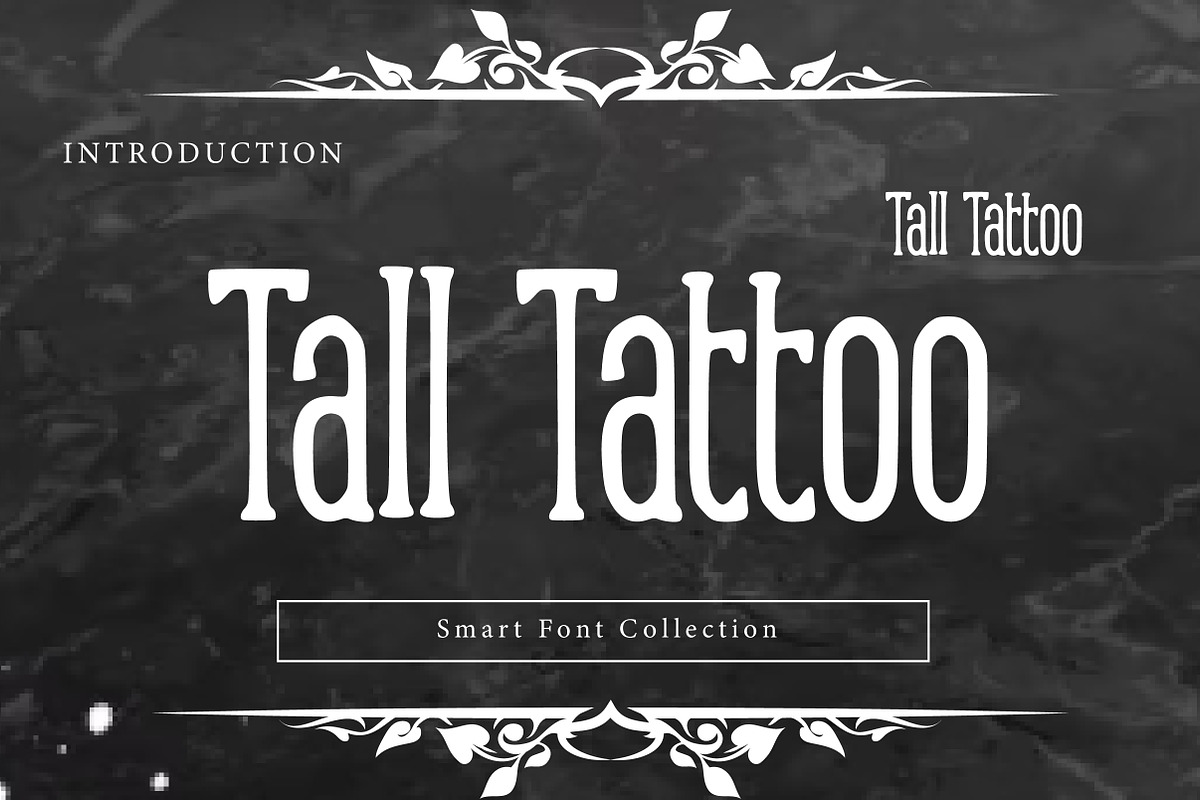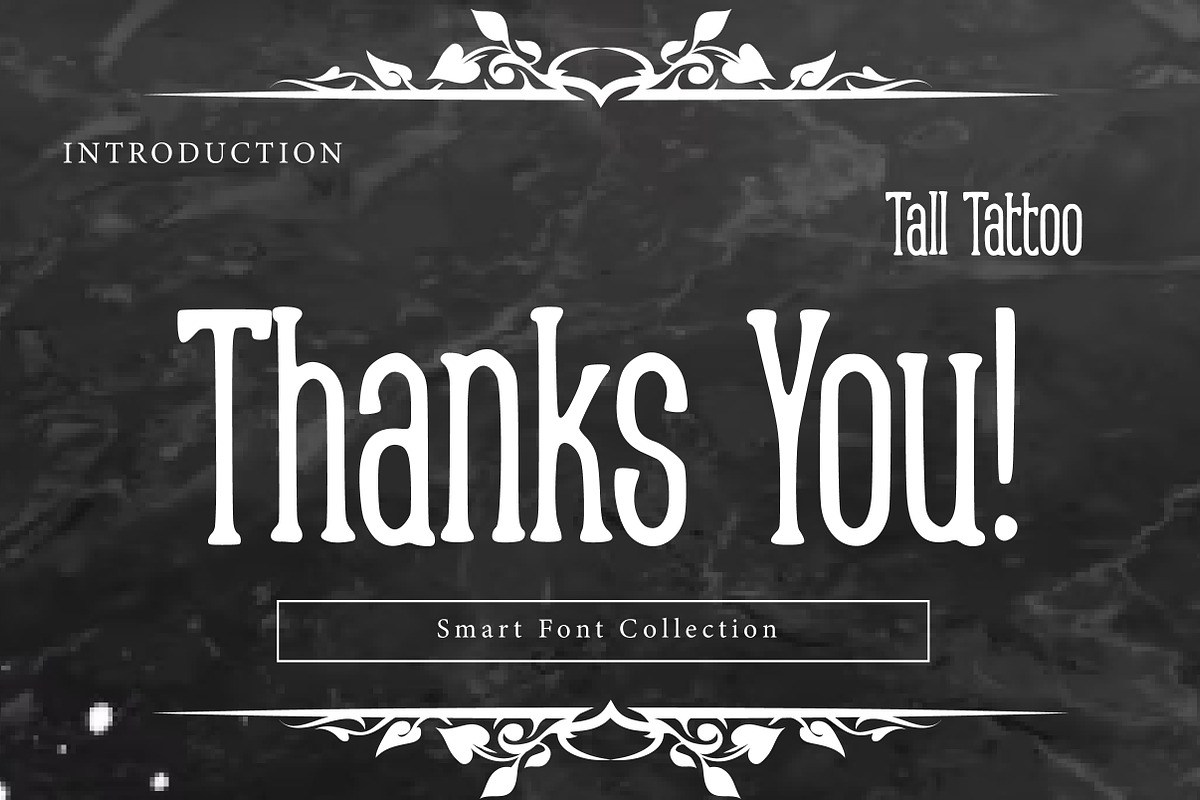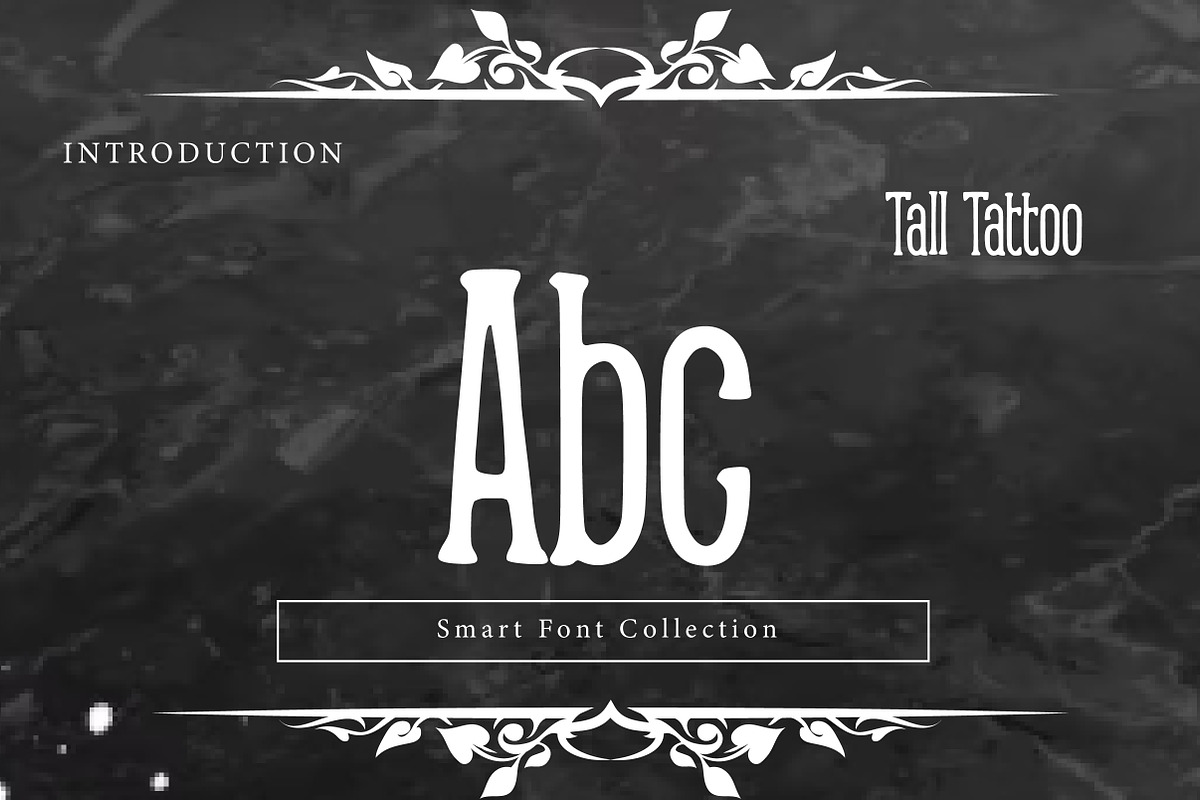
Tall tattoo
Tall Tattoo is a bold, tall display font with a vintage tattoo-inspired attitude. Its condensed proportions, heavy strokes, and slightly rough/inked character make it perfect for tattoo-style lettering, streetwear graphics, bold logos, posters, labels, and edgy branding. The tall shapes create strong vertical impact in headlines while keeping a classic old-school vibe. Use Tall Tattoo for apparel designs, barbershop themes, biker branding, band artwork, and retro-inspired typography projects.